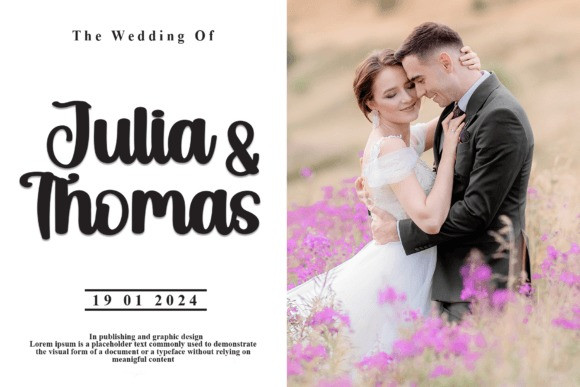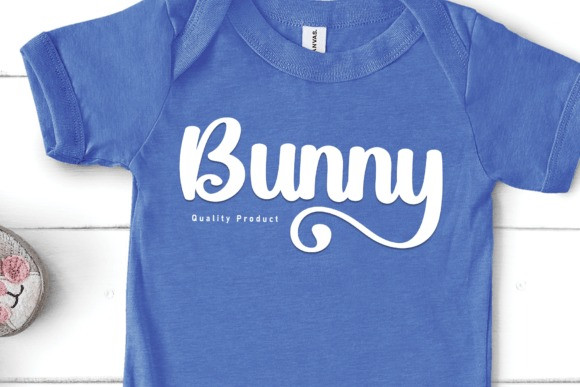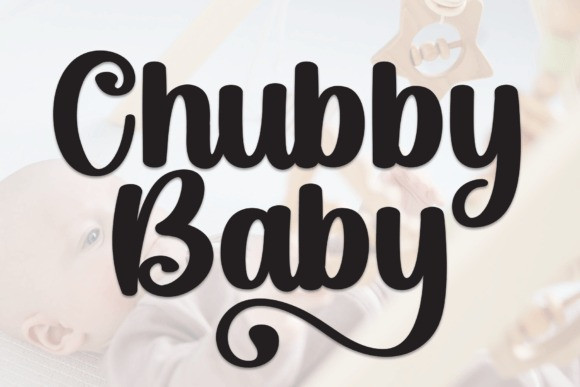
Chubby Baby Font
Chubby Baby Font is a fun and versatile handwritten font. Whether you’re using it for crafting, digital designing, presentations, or greeting card making, it’s perfect!